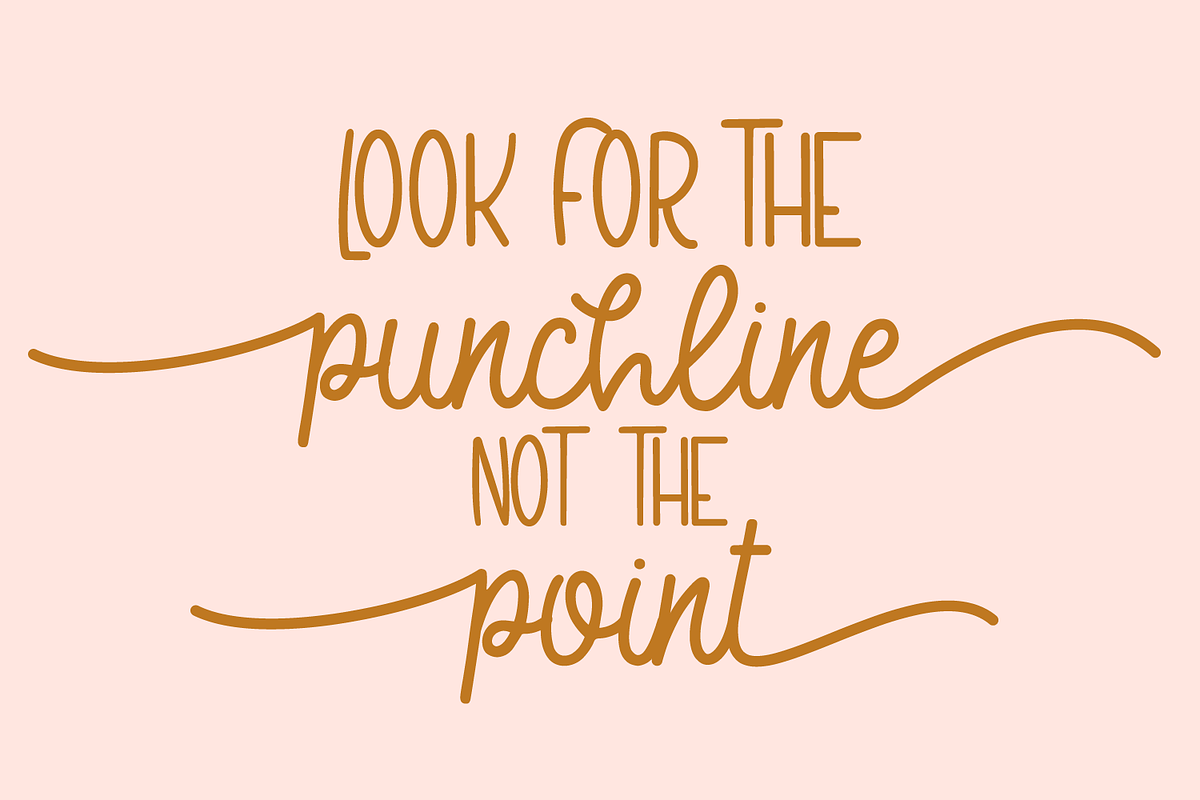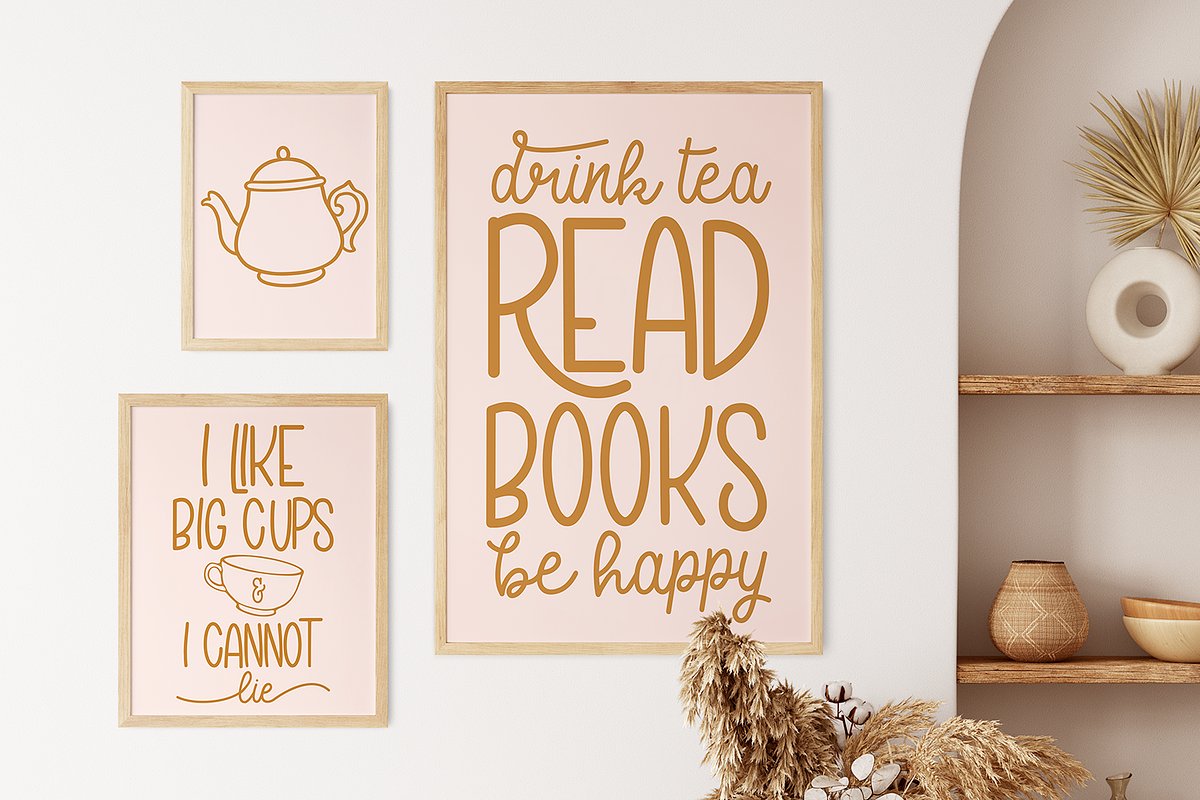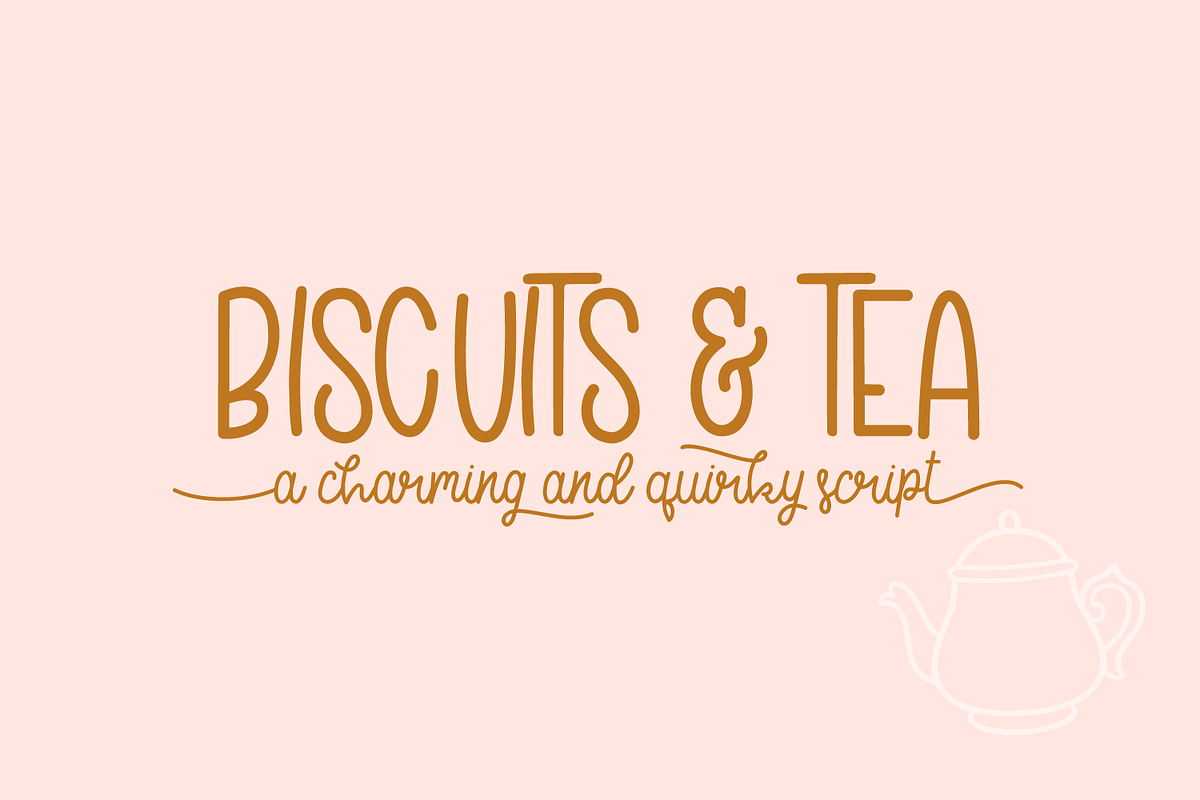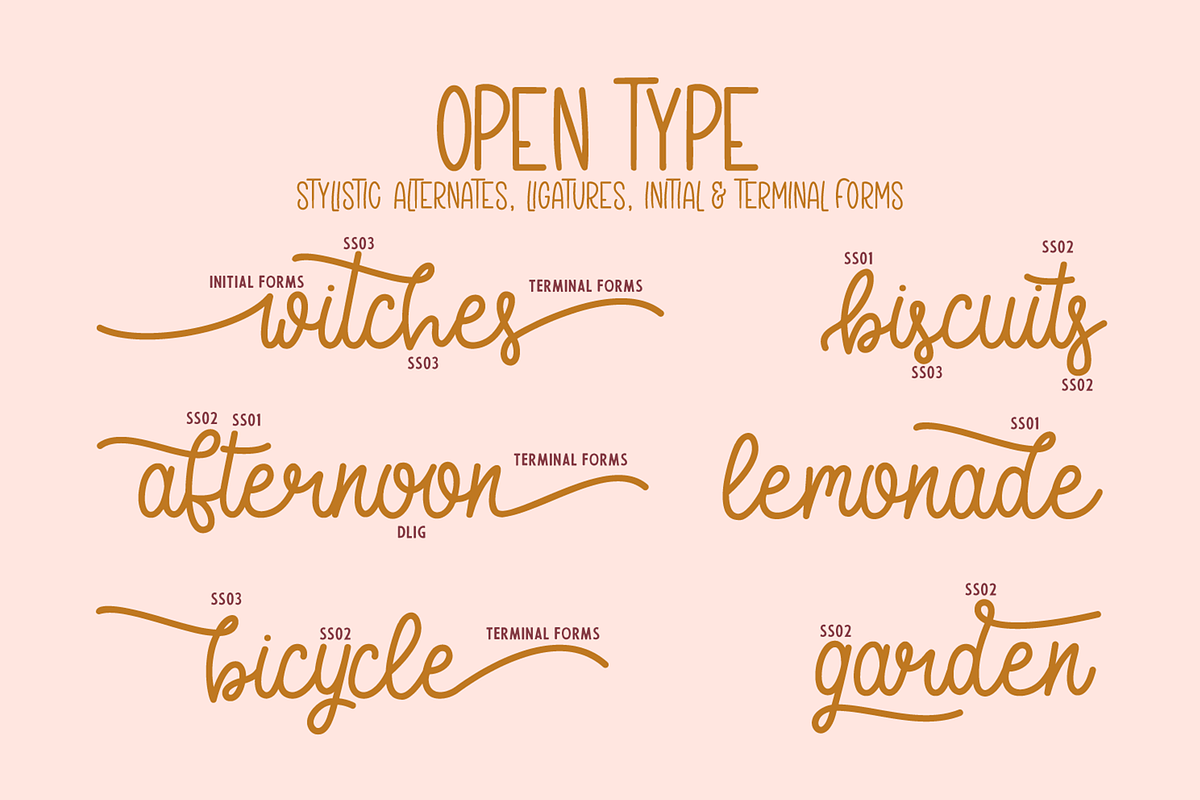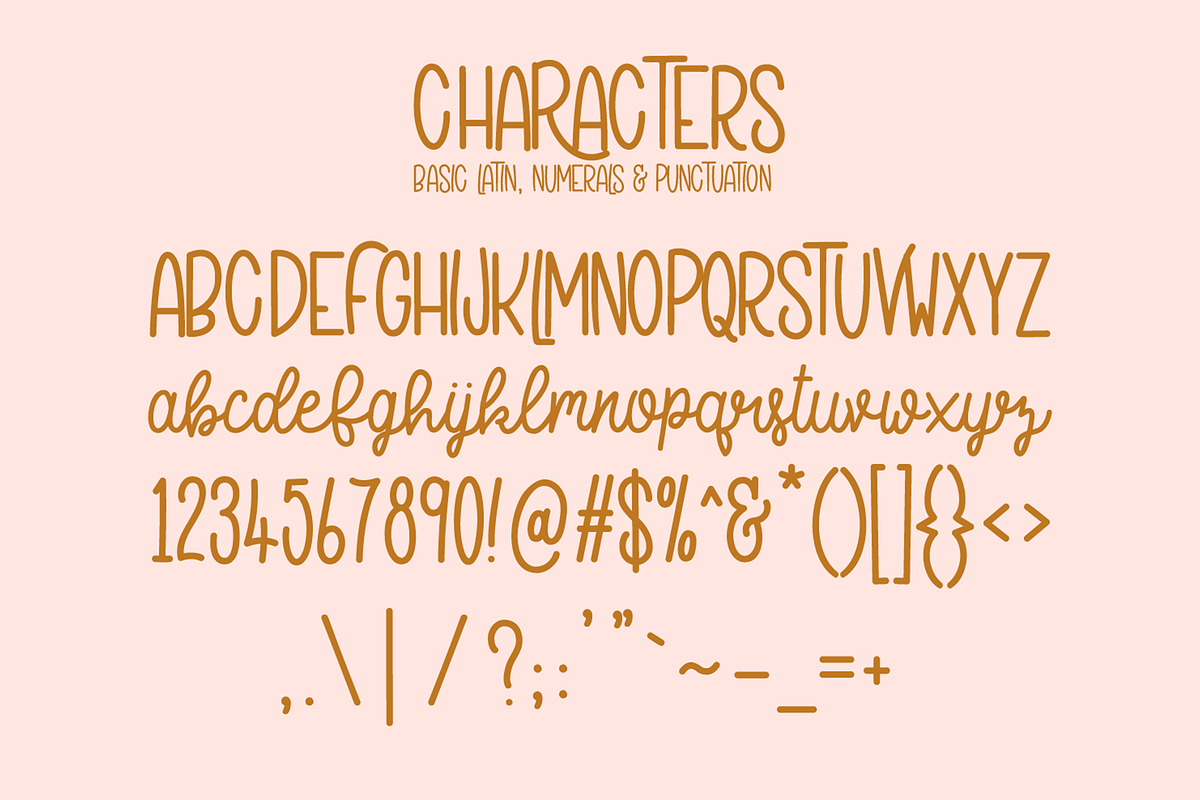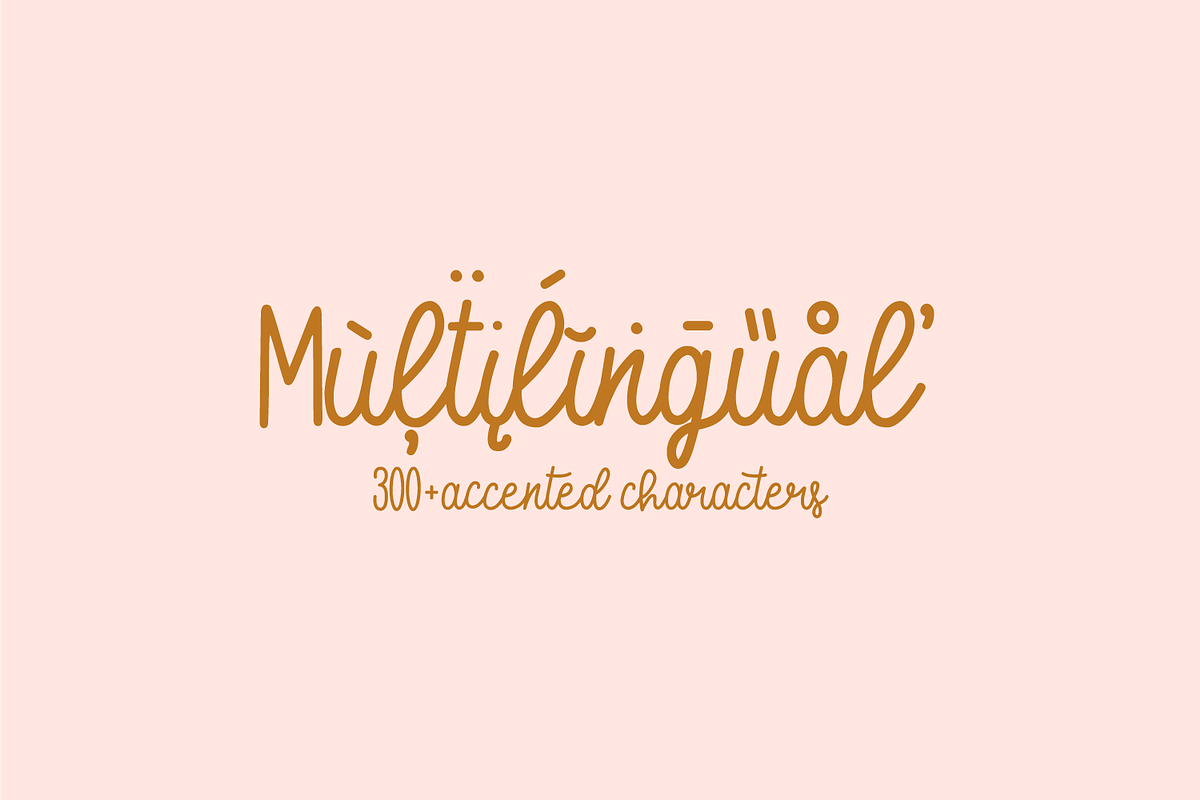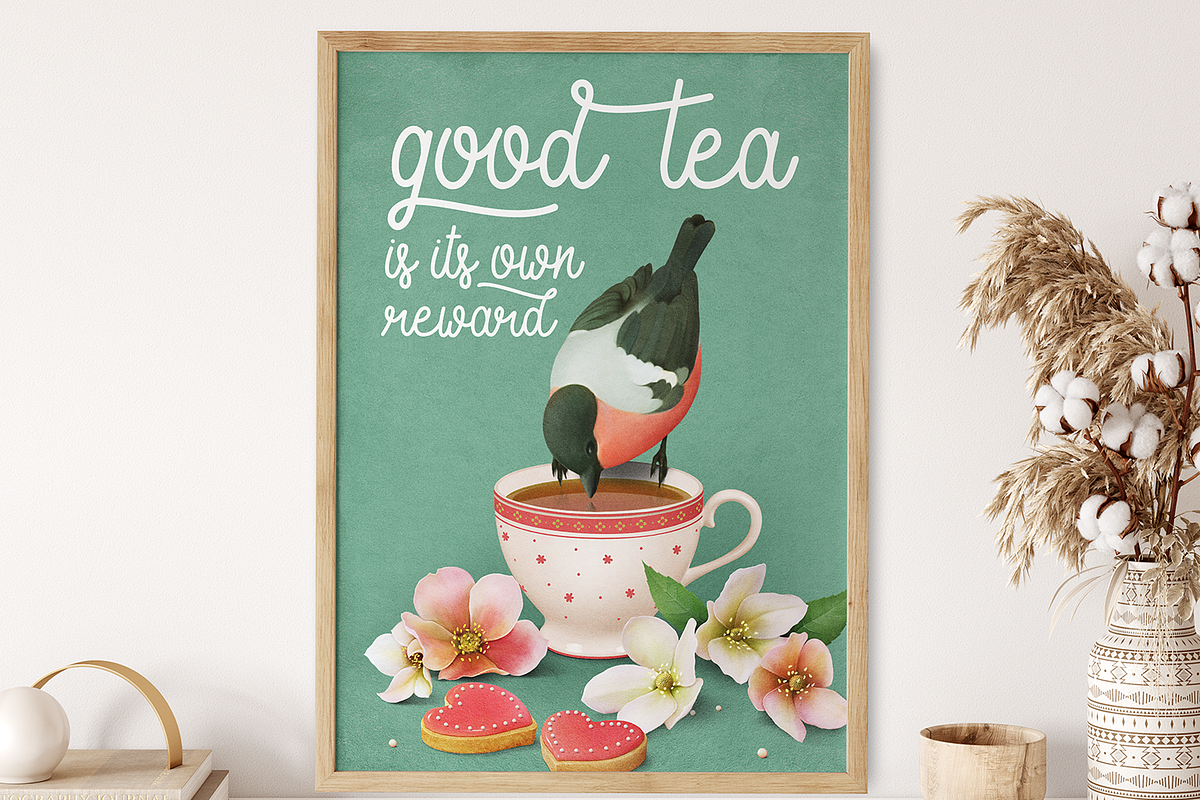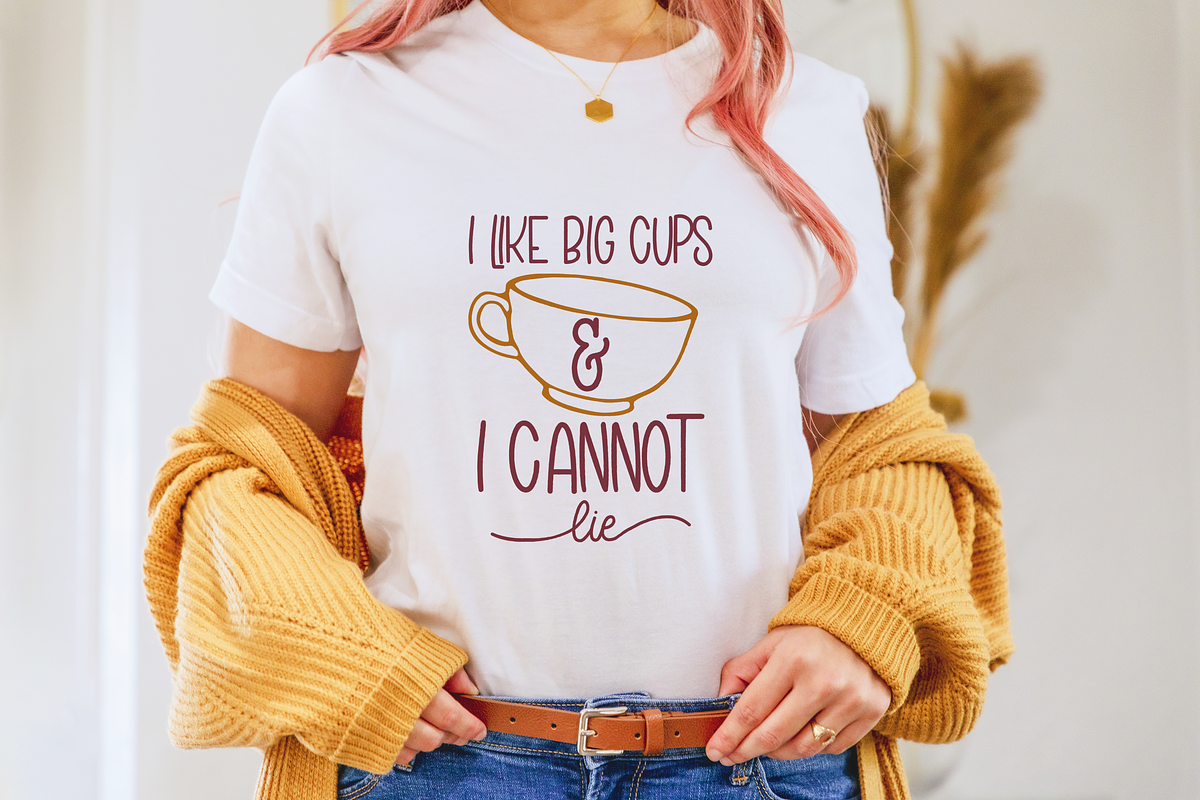
Biscuits & Tea charming script font
Meet Biscuits and Tea, a charming and quirky script font!
There's a lot more to this font than meets the eye:
Full sets of lowercase initial and terminal forms
100+ stylistic alternates and ligatures
Uppercase and lowercase can each be used as stand-alone fonts though they work well alternating between the two together.
This font is perfect for branding or t-shirt designs. Try it on packaging or a logo with a texture overlay for a vintage touch. With a total of 624 glyphs, it's a really fun font that I know you'll have a lot of fun using!